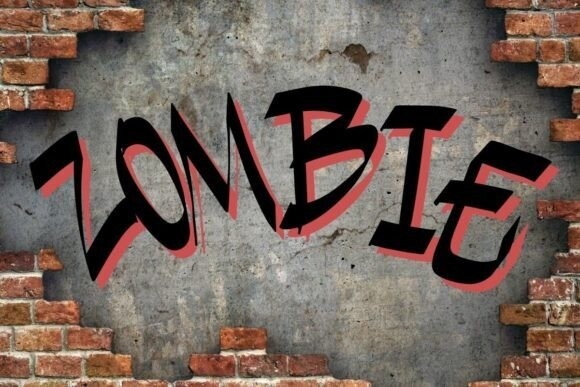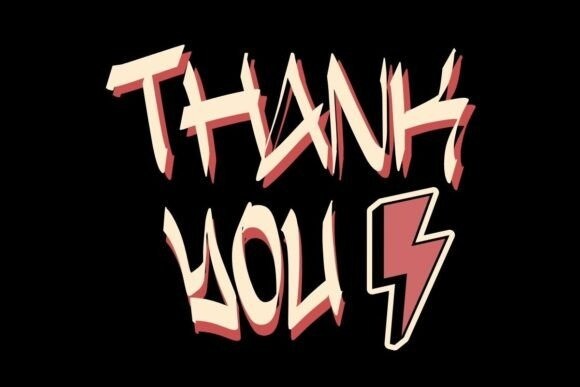
Chill Font
Chill is a bold and playful graffiti display font that will add a touch of urban edge to your designs. This font captures the essence of street art and will make your designs pop. Add this font to your urban and casual creations, and you will love the outcome.